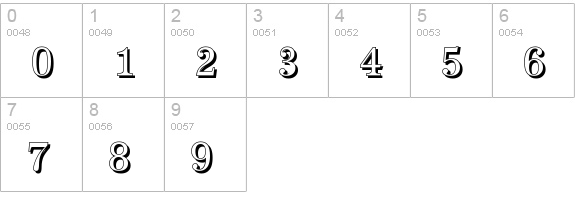
AntiquaSh-Regular is the standard, neutral variant in the AntiquaSh typeface family \xE2\x80\x94 well suited to general body text, paragraphs, and standard typographic work.
AntiquaSh-Regular is a classic and elegant serif font that exudes sophistication and timelessness. Its refined letterforms and clean lines make it perfect for a wide range of design projects, from formal invitations to corporate branding. The font's timeless appeal is complemented by its versatility, making it suitable for both print and digital applications. What sets AntiquaSh-Regular apart is not only its aesthetic appeal but also its accessibility. This exquisite font is available for free download at FontsMarket.com, allowing designers and creatives to easily incorporate its beauty into their work without any cost. Whether you're looking to add a touch of class to your next project or simply appreciate the artistry of well-crafted typography, AntiquaSh-Regular is a must-have addition to your font library. Download it today and elevate your designs with this exquisite typeface.